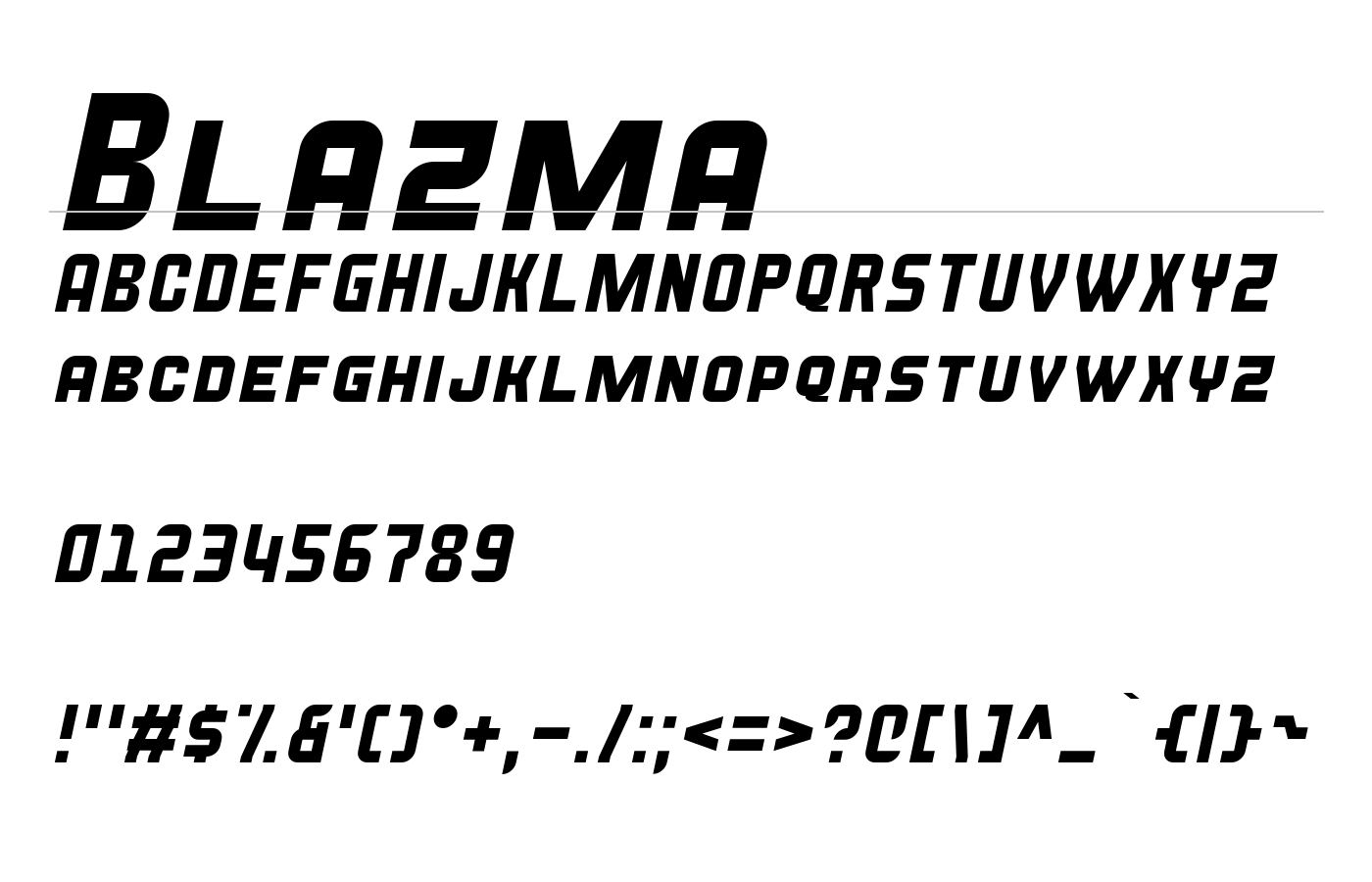
Blazma is a bold, condensed sans serif font with a strong, modern feel characterized by its italicized, geometric letterforms and sharp angles. Its high contrast in stroke weight and unique shapes evoke speed and dynamism, making it ideal for sports branding, headlines, and any design needing an energetic and contemporary edge. With its clean, precise lines and numeric versatility, Blazma works well in logos, posters, and digital media where attention-grabbing impact is key.